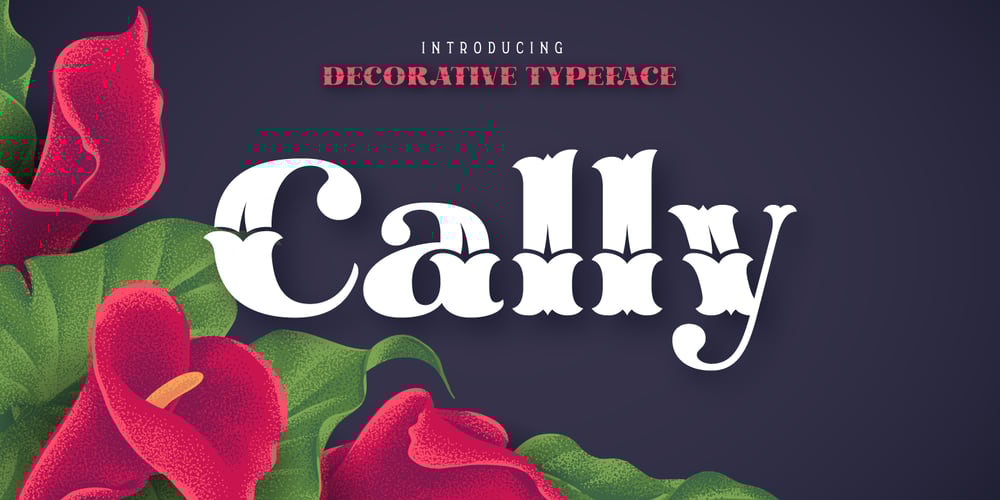
Cally Font Family was designed by Gleb Guralnyk and published by Gleb Guralnyk. Cally contains 1 styles and family package options. Cally is a classic looking typeface with decorative vintage elements. It is perfectly suited for label design and for various lettering postcards and invitations. Cally includes the English alphabet, punctuation, numbers and Western European multilingual characters (check out the screenshots with all available characters).Also there are few ligatures and swashes. To access swash glyphs, just type underscore character and number 1-5, like this _1. Using “standard ligature” feature this symbols will be automatically replaced with one of the swash symbols.